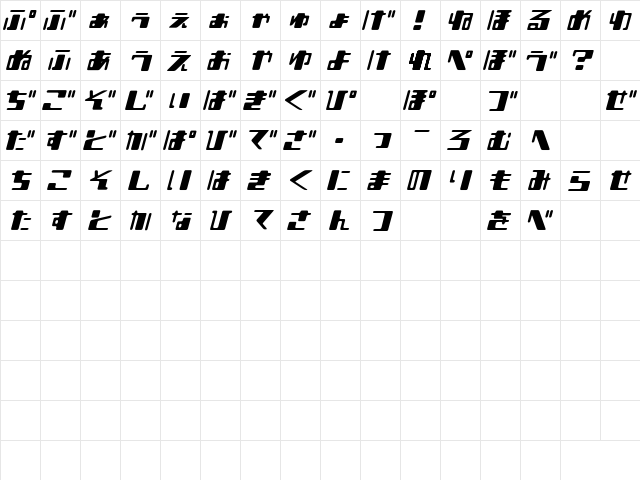
Shear 15_H Regular
Design Context for Shear 15_H Typeface
Shear 15_H is a composed and adaptable typeface that performs quietly and consistently across a wide range of design contexts.